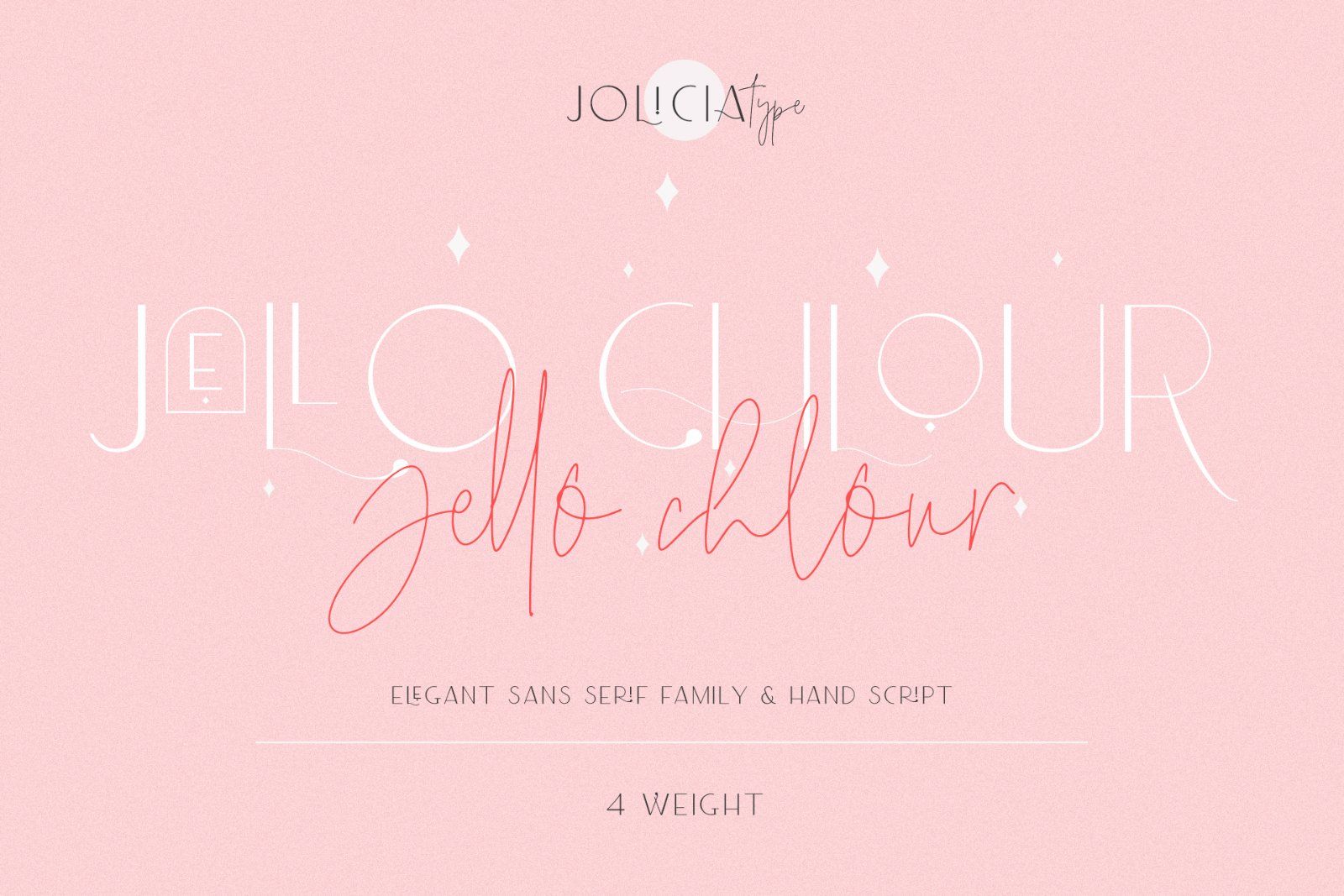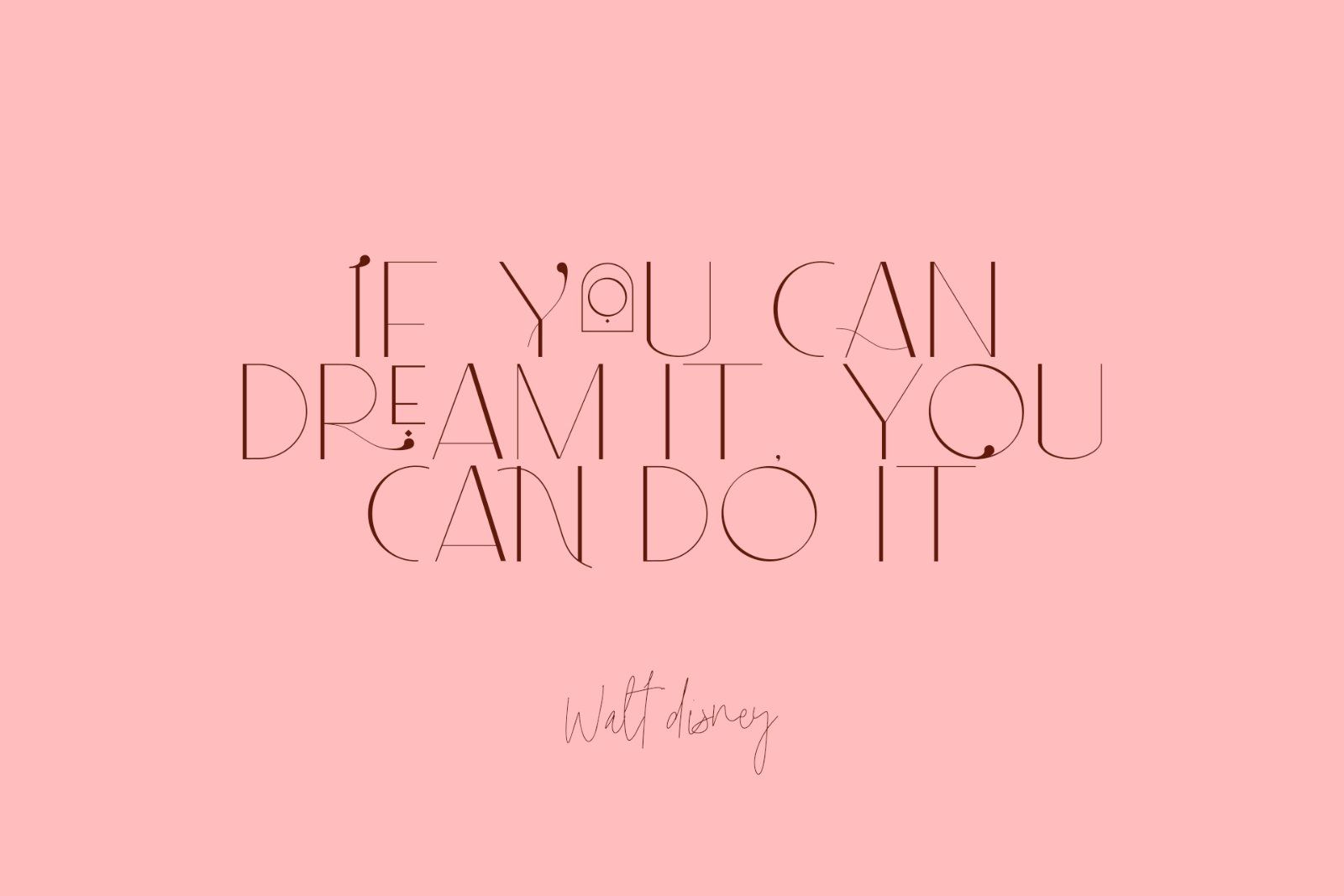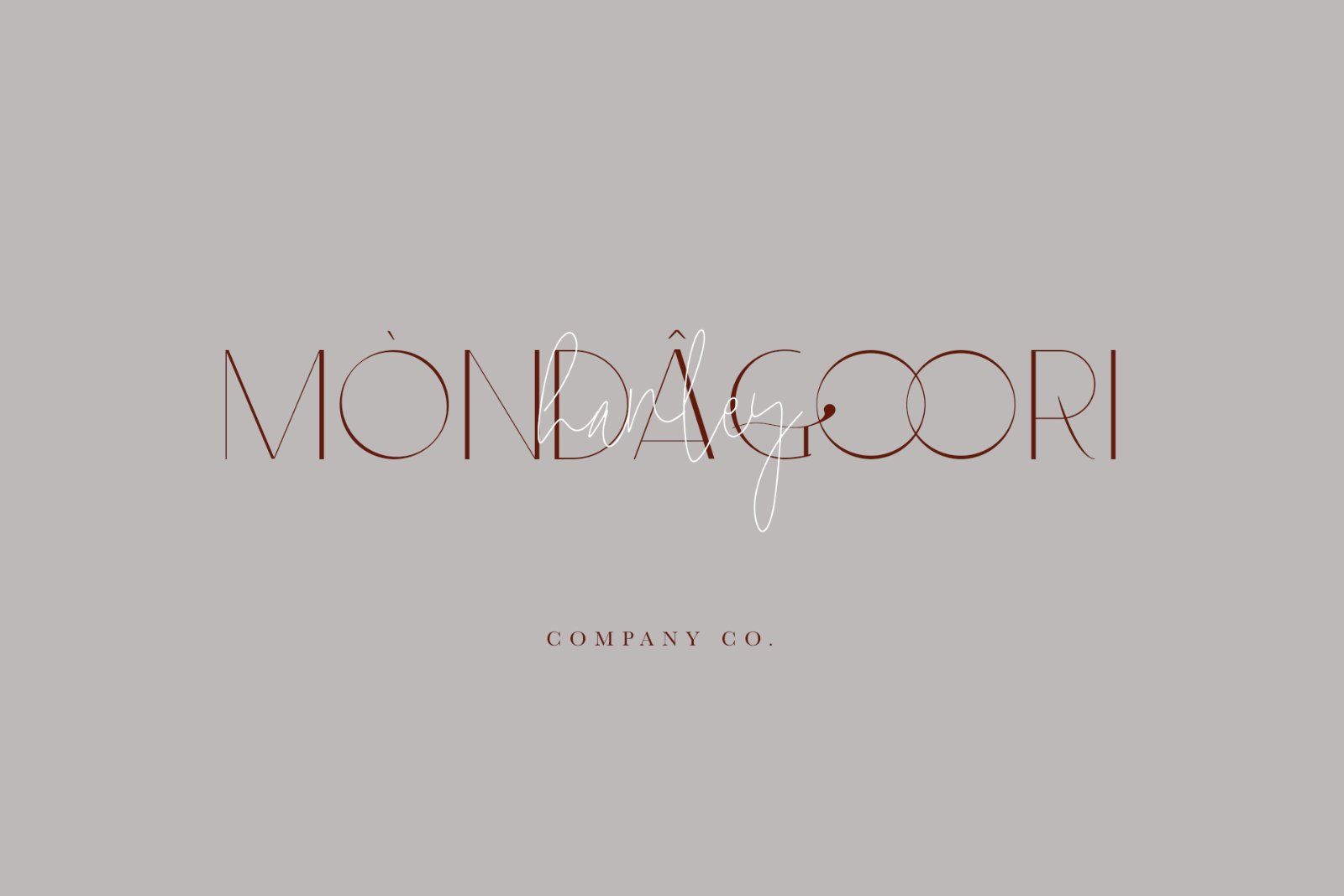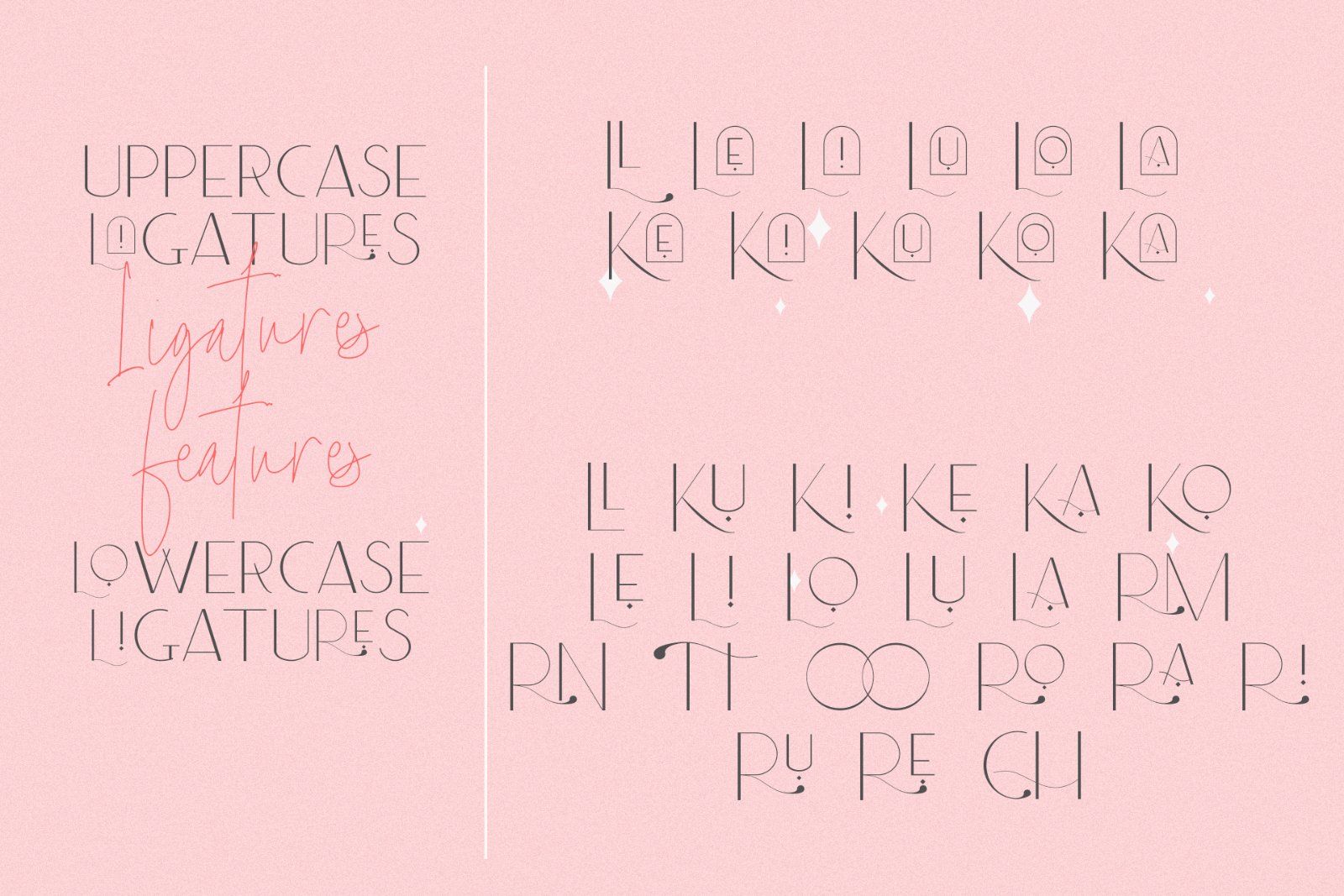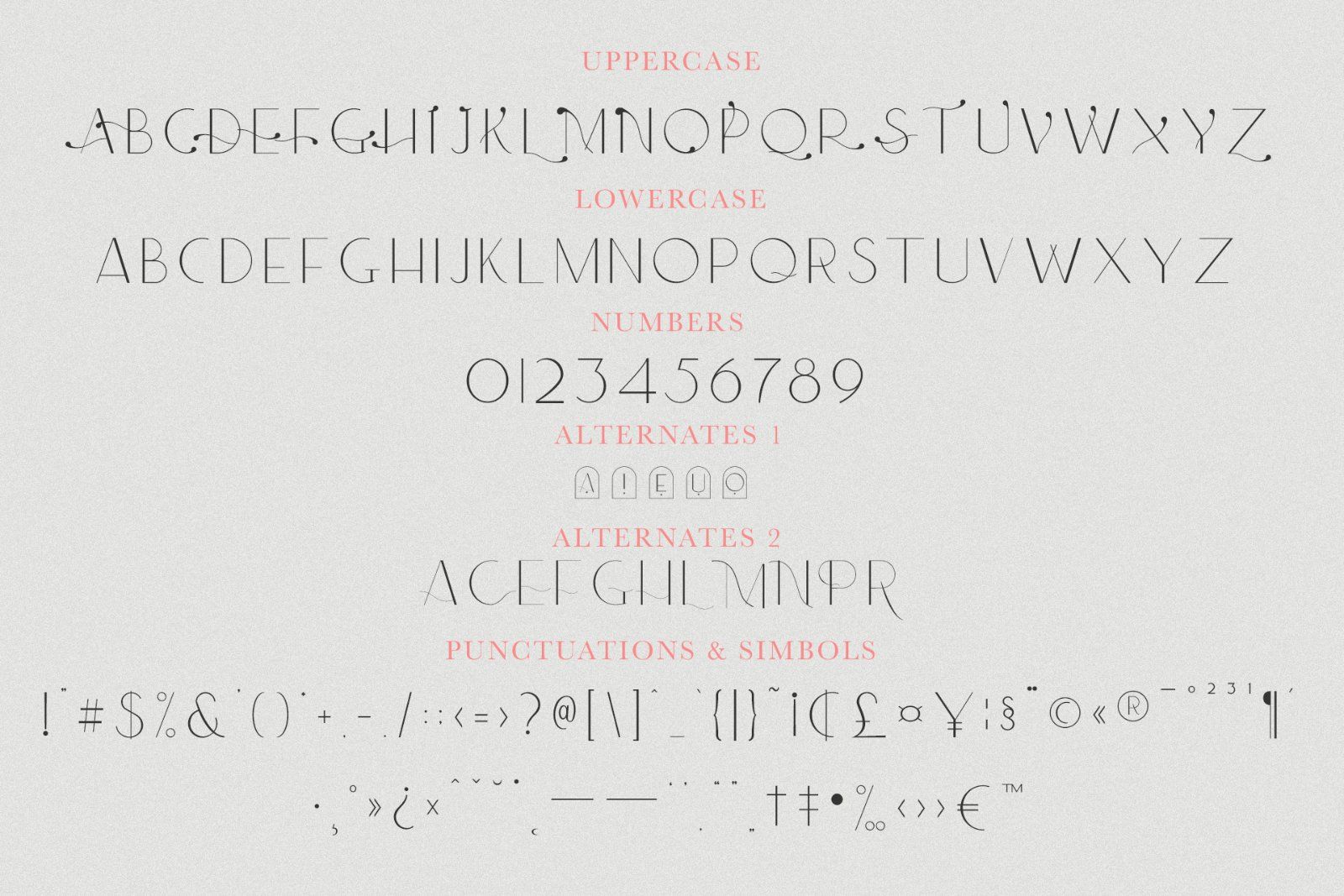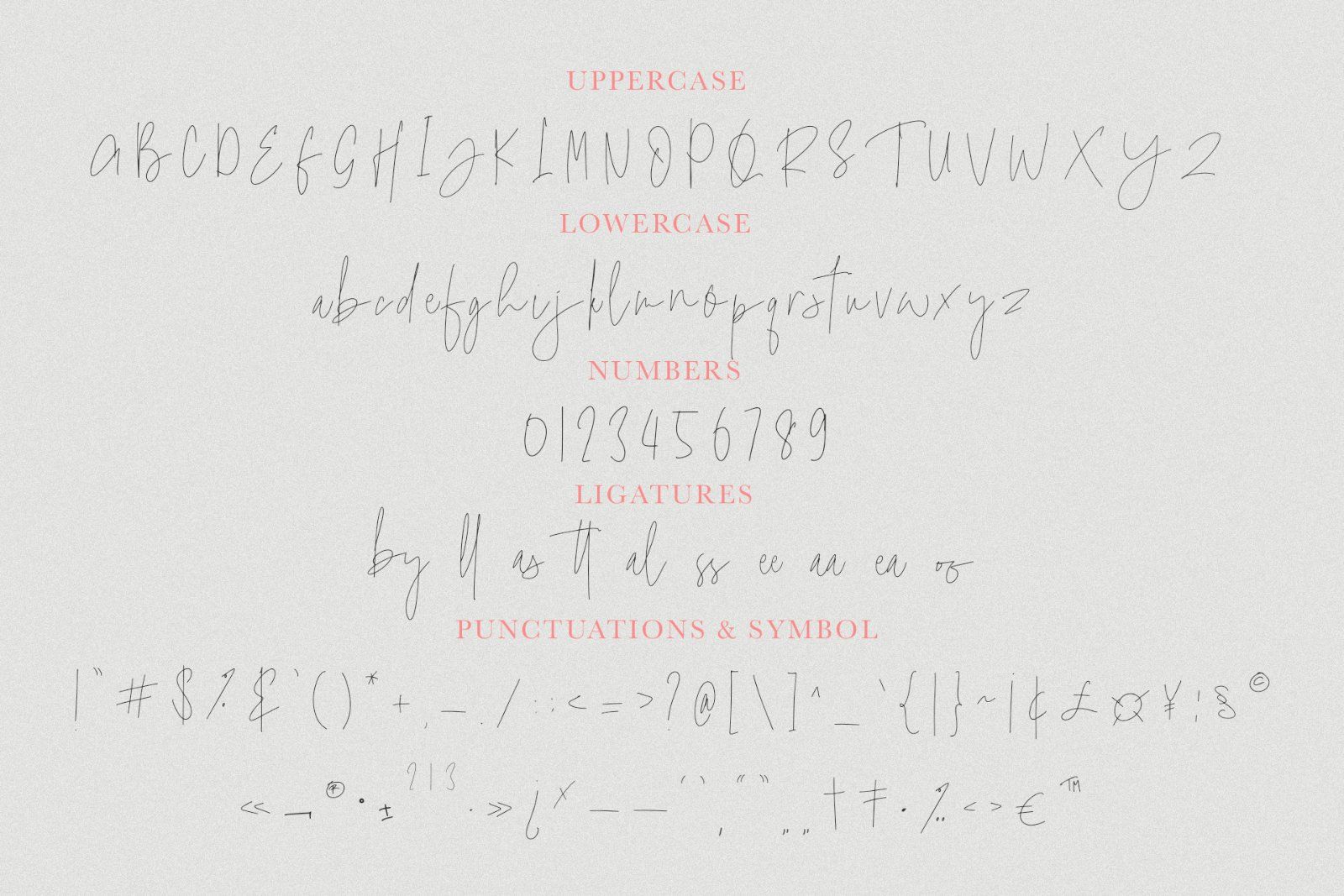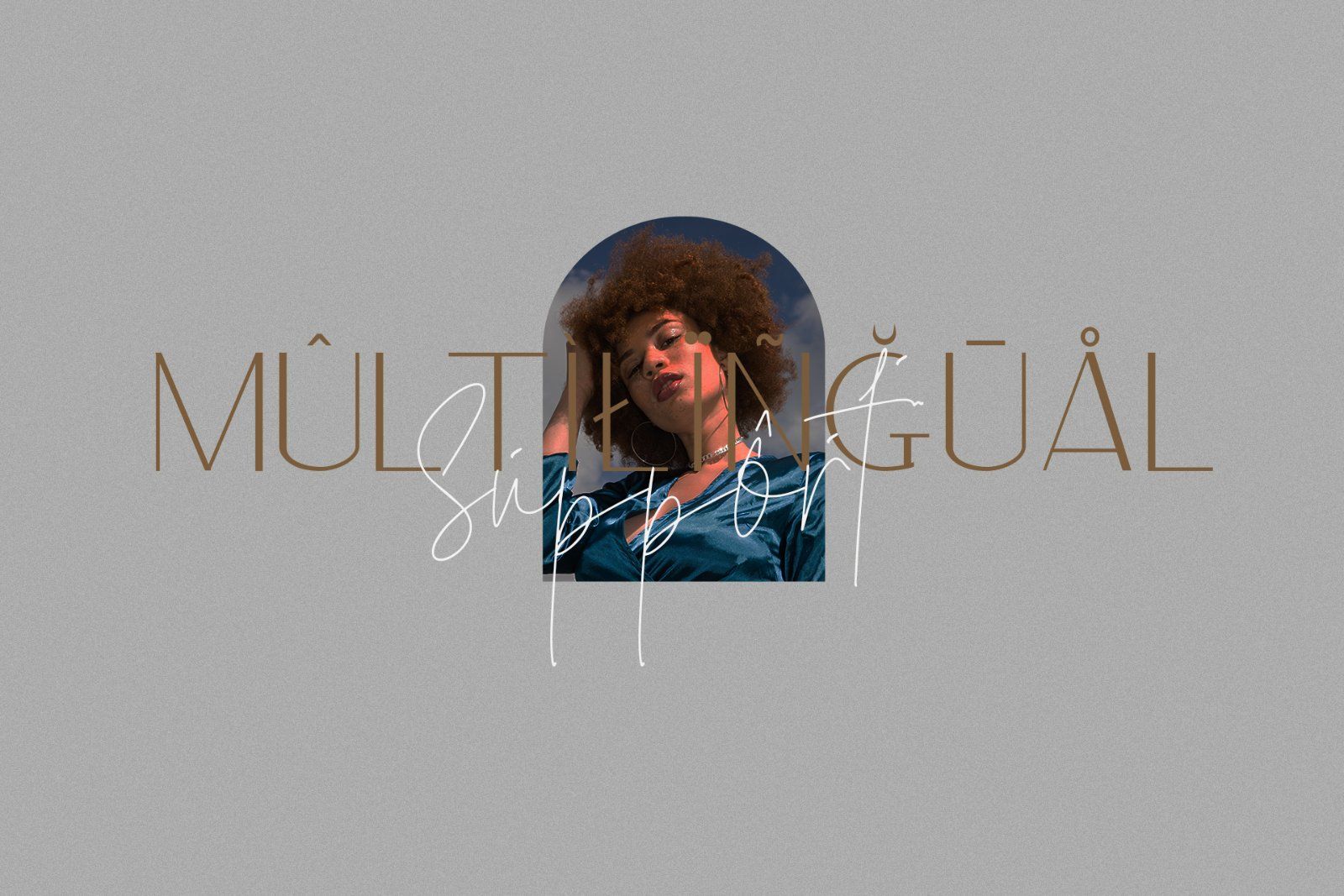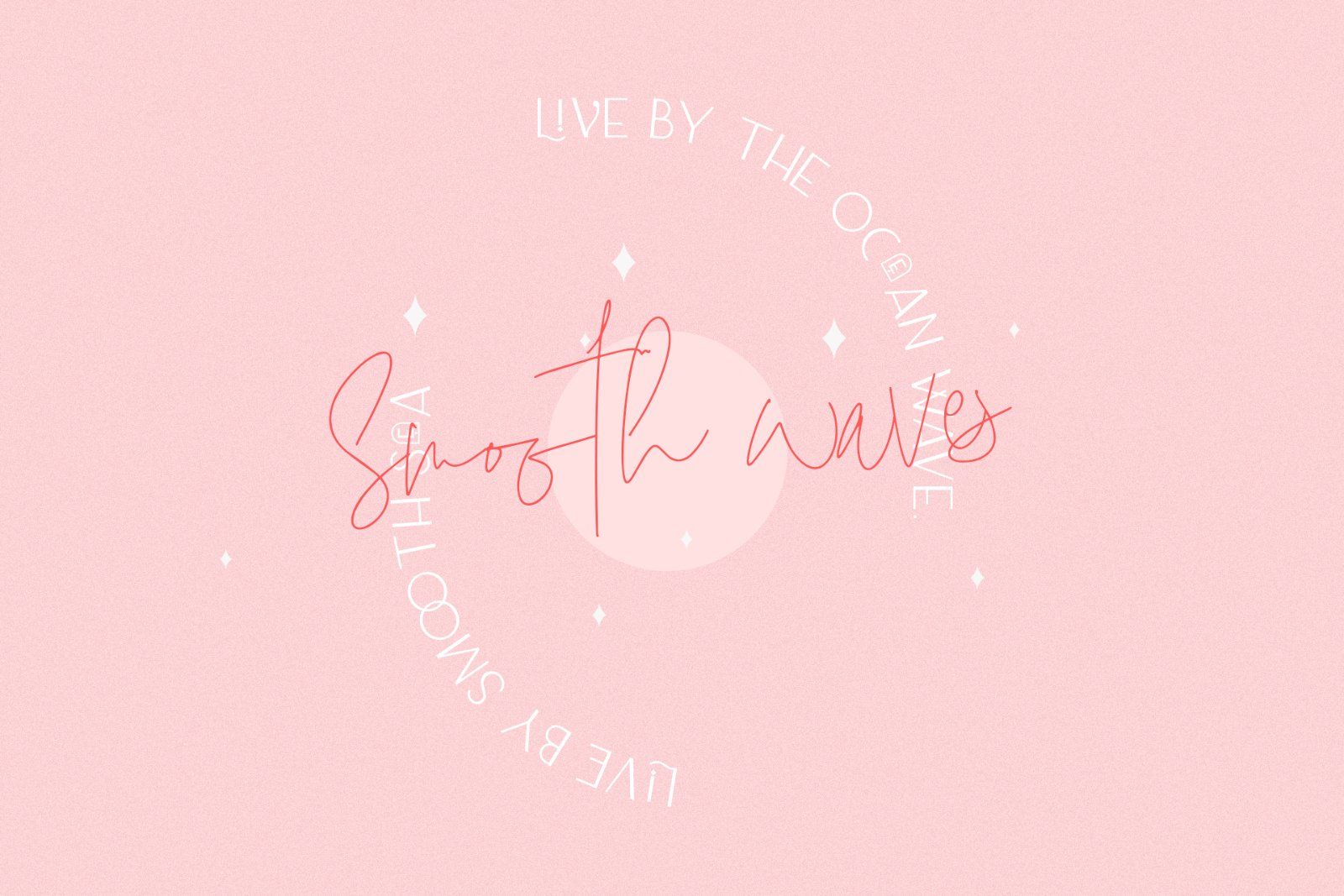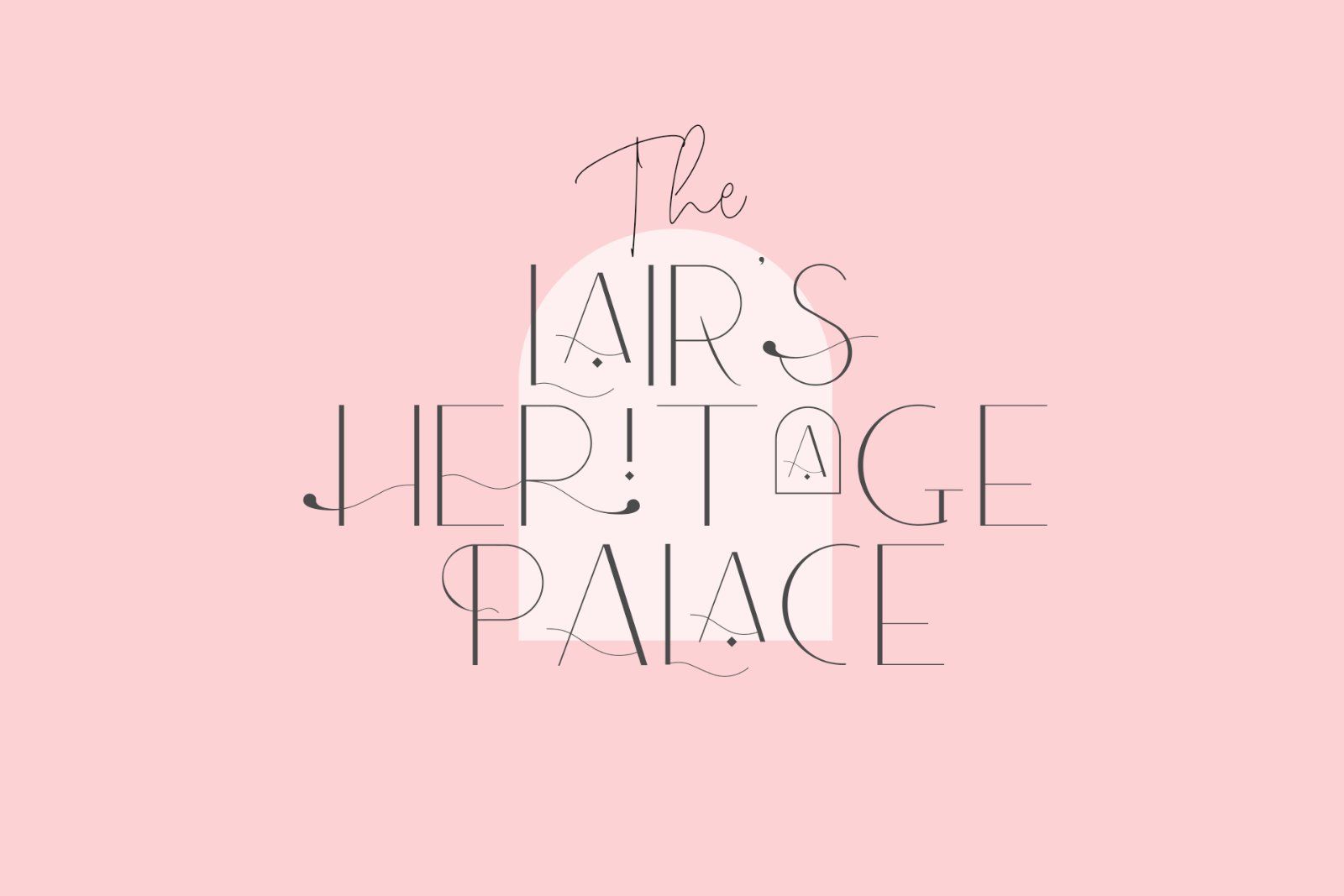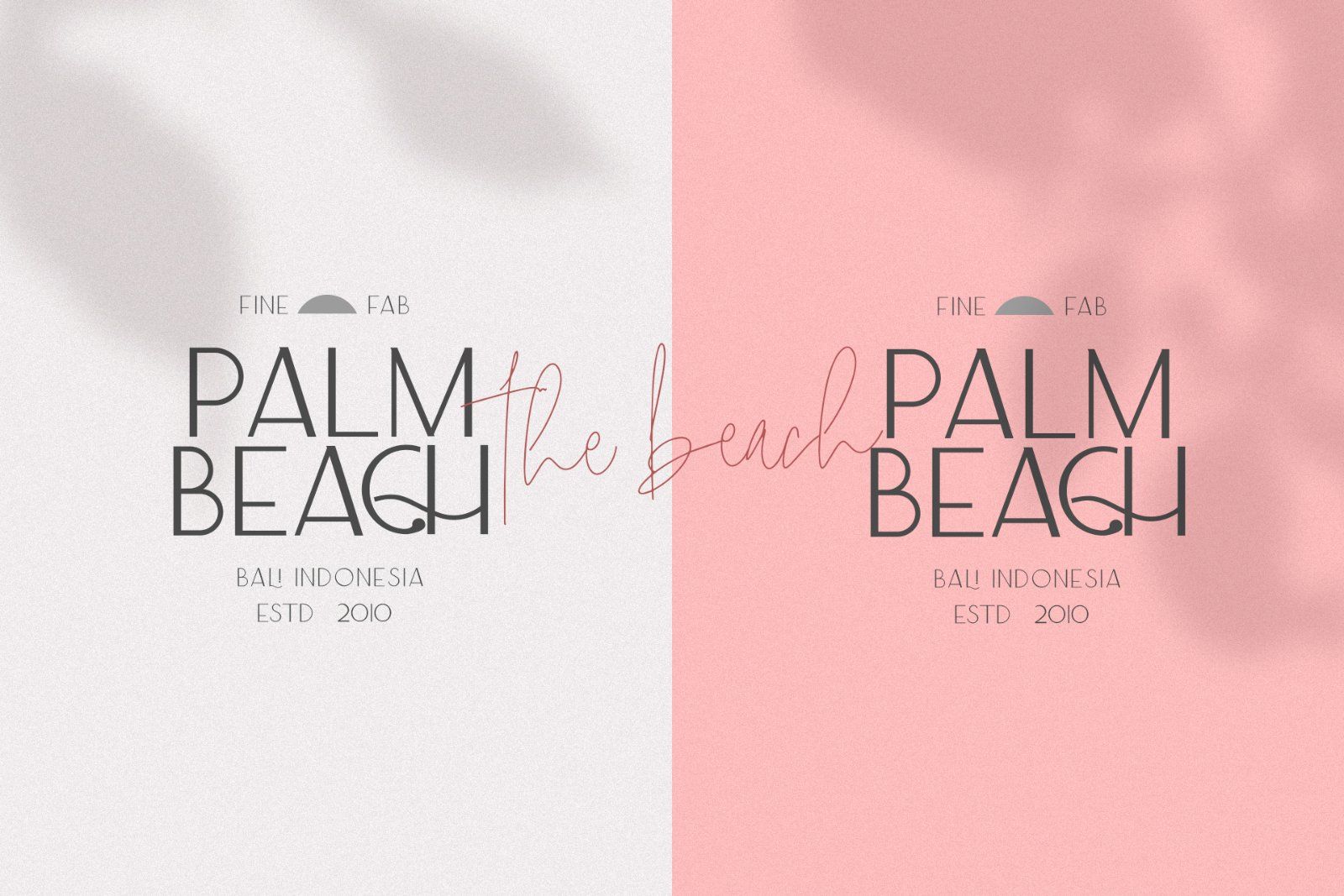
Jello Chlour is a modern elegant typeface pairing a refined sans-serif family with a graceful hand-script style. Designed for high-end branding, logos, invitations, magazines, and masterheads, this font brings a luxurious, artistic touch to any visual identity. With stylish ligatures, unique alternates, and a soft contemporary aesthetic, Jello Chlour elevates every project with beauty and sophistication.